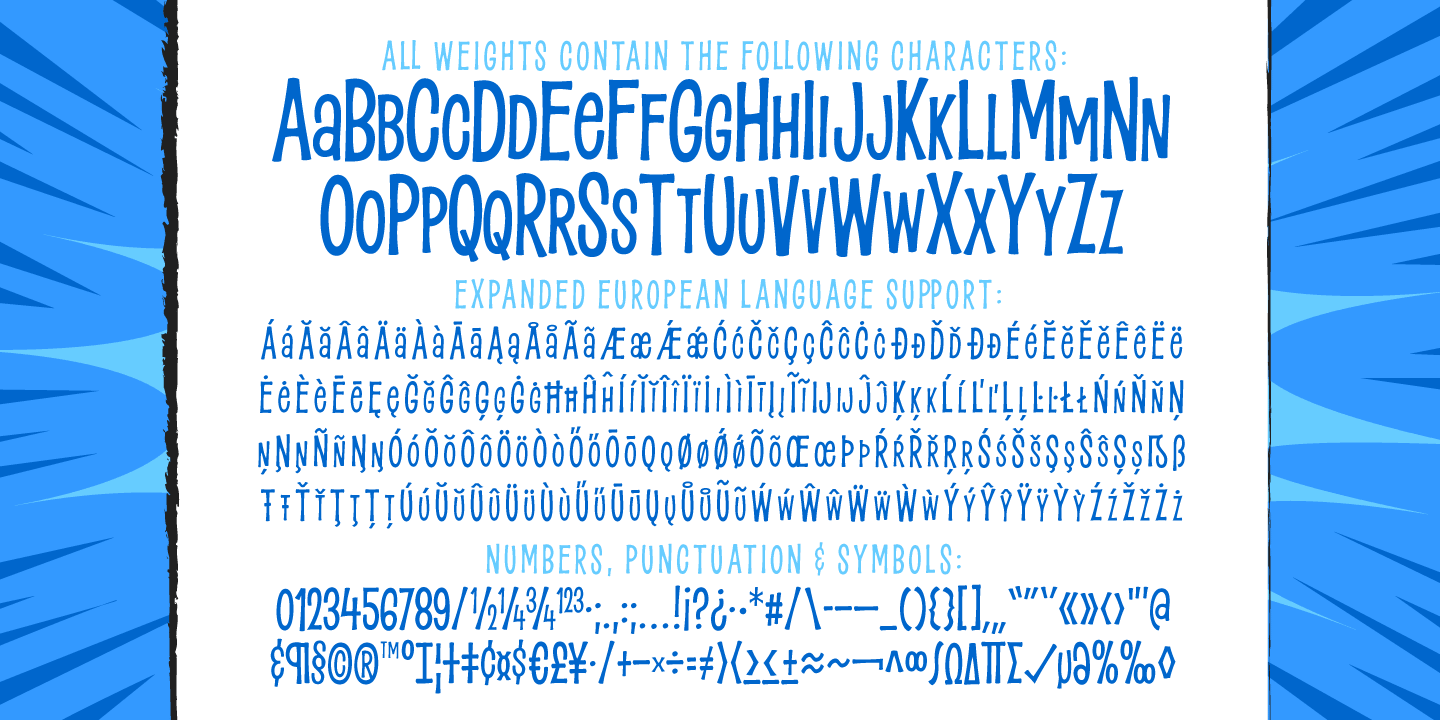
Pleasure Point
Font Family by Comicraft Fonts
Slocals! Check out the action of our radical new font, PLEASURE POINT! It's Bananas, Totally Tubular, Stoked and ready to ride some waves. Back in his grom days, Comicraftsman John JG Roshell could be found down at Pleasure Point, waiting for The Big One, and this is IT! Don't be a criddler, paddle hard and rip this font to your motherboard to keep it real every time you gun, rail or tail. And if you get rag dolled, dude, don't blow out your squeaker. Pleasure Point will hang loose and chillax you to the max.